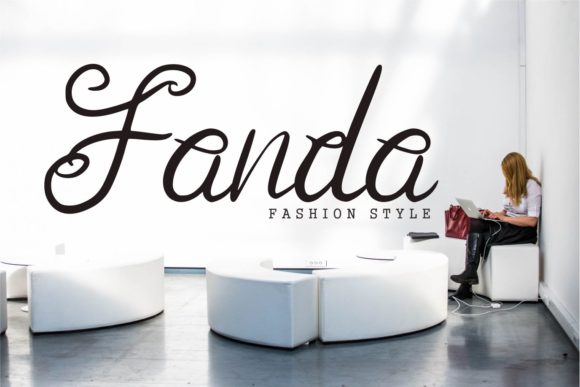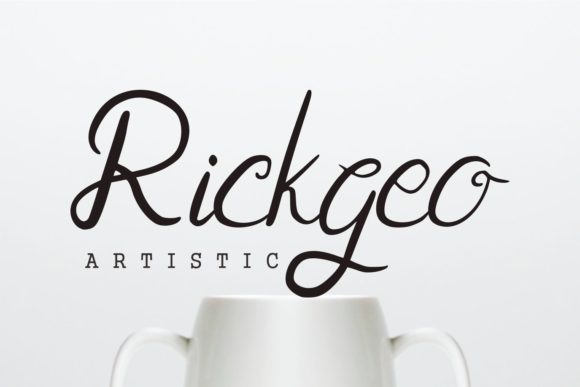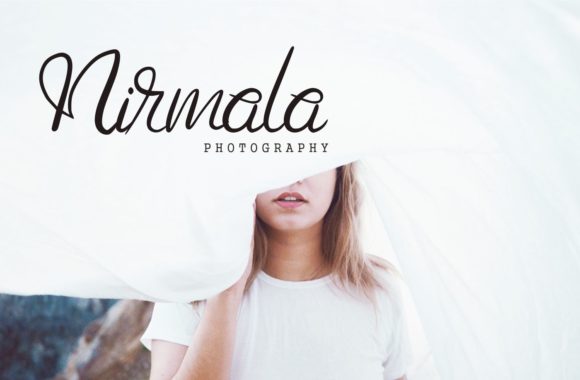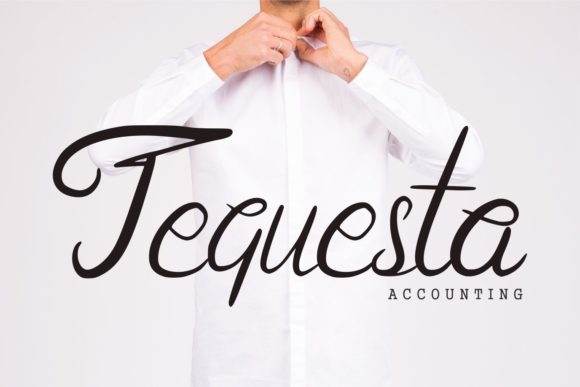
HomeScript FontsAnggita Font Script Fonts Anggita Font FacebookXPinterestWhatsApp Anggita Font Poster 2 Anggita Font Poster 3 Anggita Font Poster 4 Anggita Font Poster 5 About Anggita Font Anggita combines ageless beauty and bold authenticity into one striking typeface. Get inspired by its unique feel! DOWNLOAD NOW People also explored Esdoria Journey Font Ontario Font Smarts Font Manchester Signature Font Greenhouse Font Helpful Font Logomotion Missing You Font Jacky Halloween Font 302 0 TagsAnggita Font Previous articleBirallina FontNext articleAsmelina Harley Font LEAVE A REPLY Cancel reply Comment: Please enter your comment! Name:* Please enter your name here Email:* You have entered an incorrect email address! Please enter your email address here Website: Save my name, email, and website in this browser for the next time I comment. Personal Use Free Bridgetown Font Personal Use Free Read more about this font Kellana Personal Use Free Read more about this font Messages Personal Use Free Read more about this font Advantage Personal Use Free Read more about this font BLOG Free vs Paid Fonts: Why Investing in Premium Fonts Is Worth It Free vs Paid Fonts: Why Premium Fonts Are Worth It in 2025 The debate of free vs paid fonts continues in the design world. While... Transform Your Website: Elevate Your Typography with 7 Best Web Font Generators Elegant Wedding Invitation Fonts – Handwritten & Script Fonts Best Fonts for T-Shirt Design – Top 2025 Picks